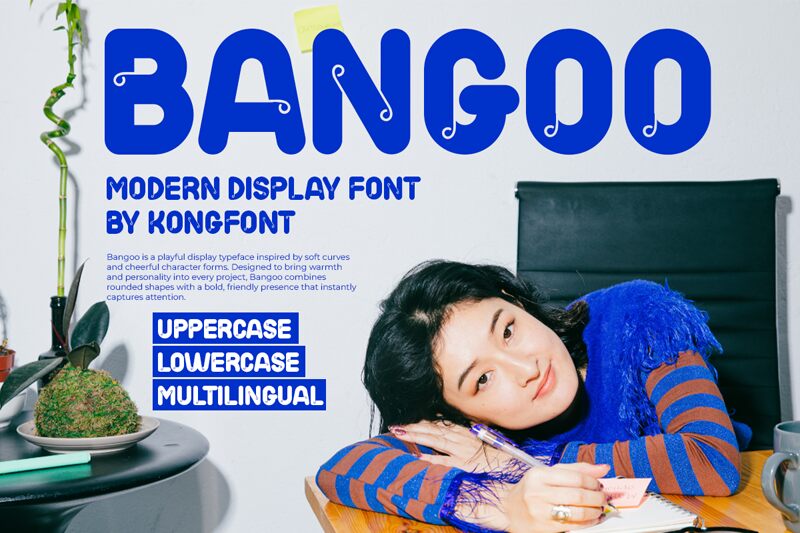
Bangoo font is a free decorative font with a friendly and modern appearance shared by Kong Font. It embodies a casual, vibrant, and energetic style that is perfect for contemporary applications. The font pays special attention to personality and warmth which is integrated seamlessly within every line for a natural finish.
Its suitable use cases include usage in creative branding, logo design, advertising, packaging design, blog headlines, magazine covers, book covers, flyer design, social media posts, slogans, and poster design. The fun appearance of this font is excellent for grabbing attention while delivering a welcoming feeling.